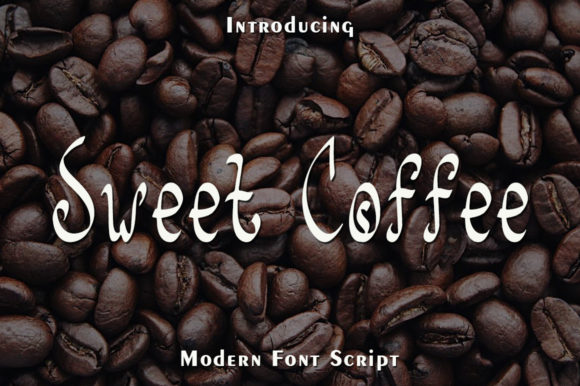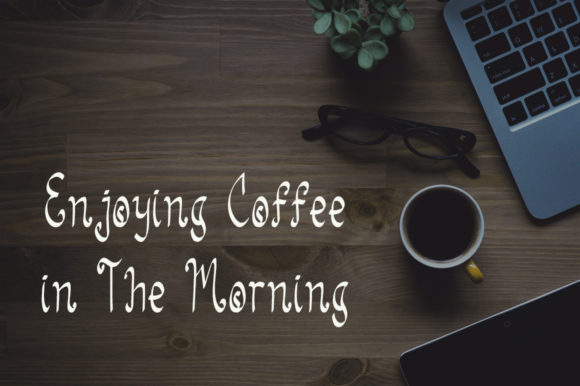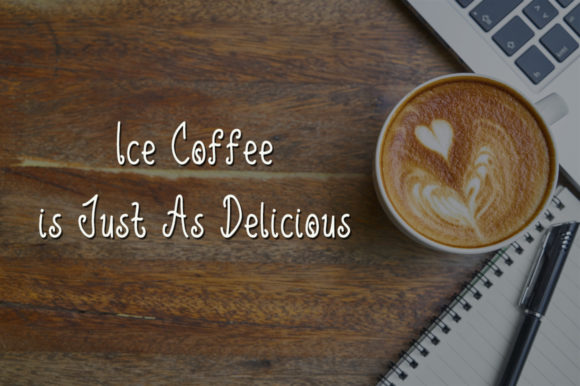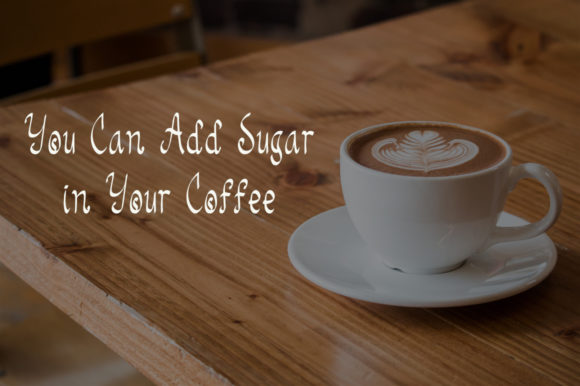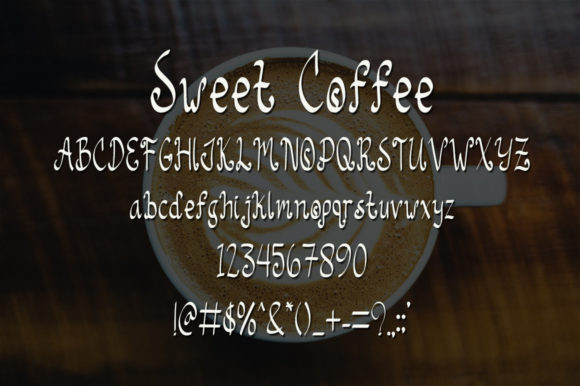
Sweet Coffee Font
About Sweet Coffee Font
Introducing “Sweet Coffee,” a one-of-a-kind handwritten font that exudes elegance and sophistication. With its unique and distinctive style, “Sweet Coffee” is the perfect choice for adding a touch of refinement to your projects. Here are some key features that make “Sweet Coffee” truly special:
Unique Handwritten Elegance: The elegant strokes of “Sweet Coffee” give your text a sense of refinement and grace. Its unique design sets it apart from other fonts, making it a standout choice for your creative endeavors.
Timeless Charm: “Sweet Coffee” carries a timeless charm that transcends trends, ensuring that your designs remain relevant and captivating for years to come. Its classic appeal adds a touch of sophistication to your work.
Versatile and Adaptable: Whether you’re designing wedding invitations, branding materials, quotes, or any other creative project, “Sweet Coffee” adapts effortlessly to your vision. Its versatility allows it to complement a wide range of themes and styles.
Spectacular Designs: With “Sweet Coffee” at your disposal, your designs are elevated to new heights of elegance and refinement. This font will add a touch of sophistication to your work, making it truly unforgettable.
Fall in love with the unique handwritten elegance of “Sweet Coffee” and let its timeless style become the centerpiece of your favorite projects. Its versatility and charm will transform your designs into masterpieces that leave a lasting impression on your audience. Embrace the beauty and sophistication of “Sweet Coffee” as you embark on your creative journey, creating spectacular designs that stand the test of time.